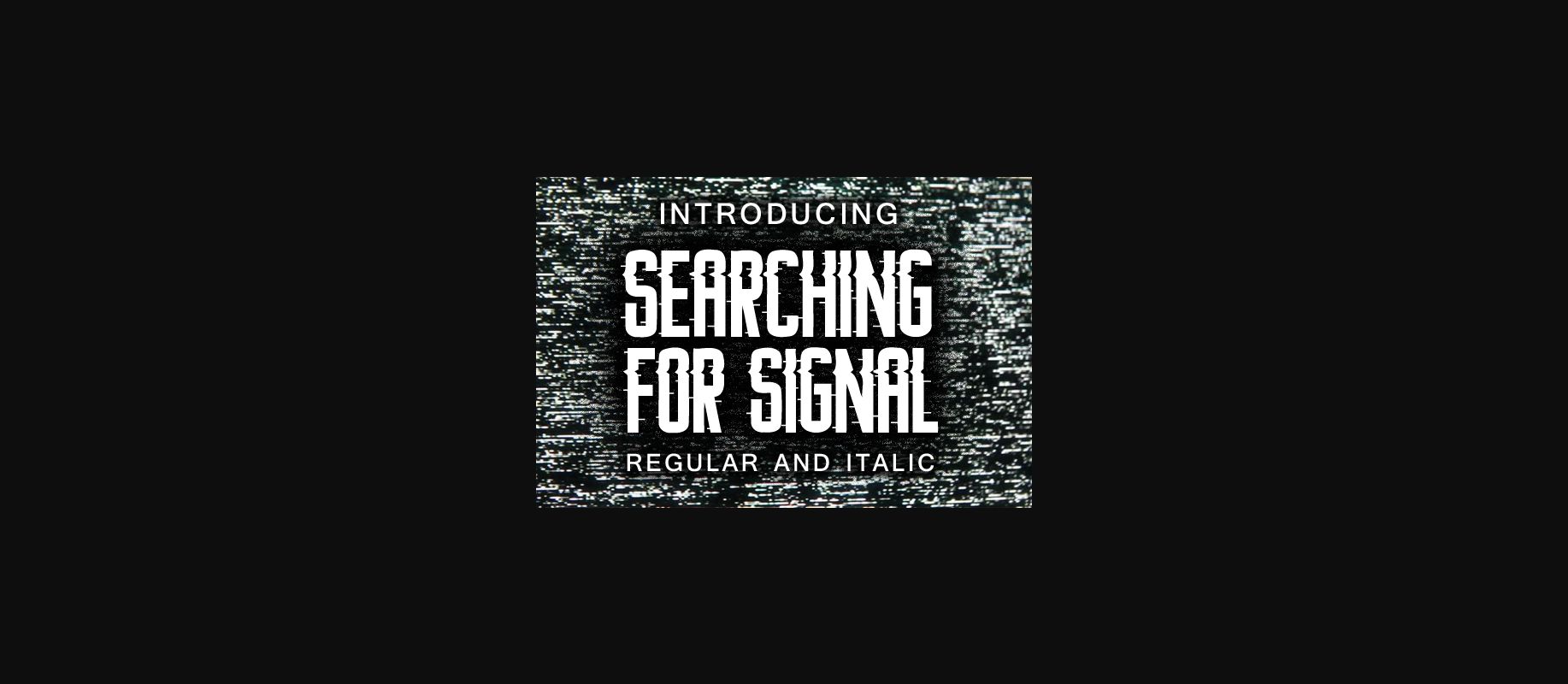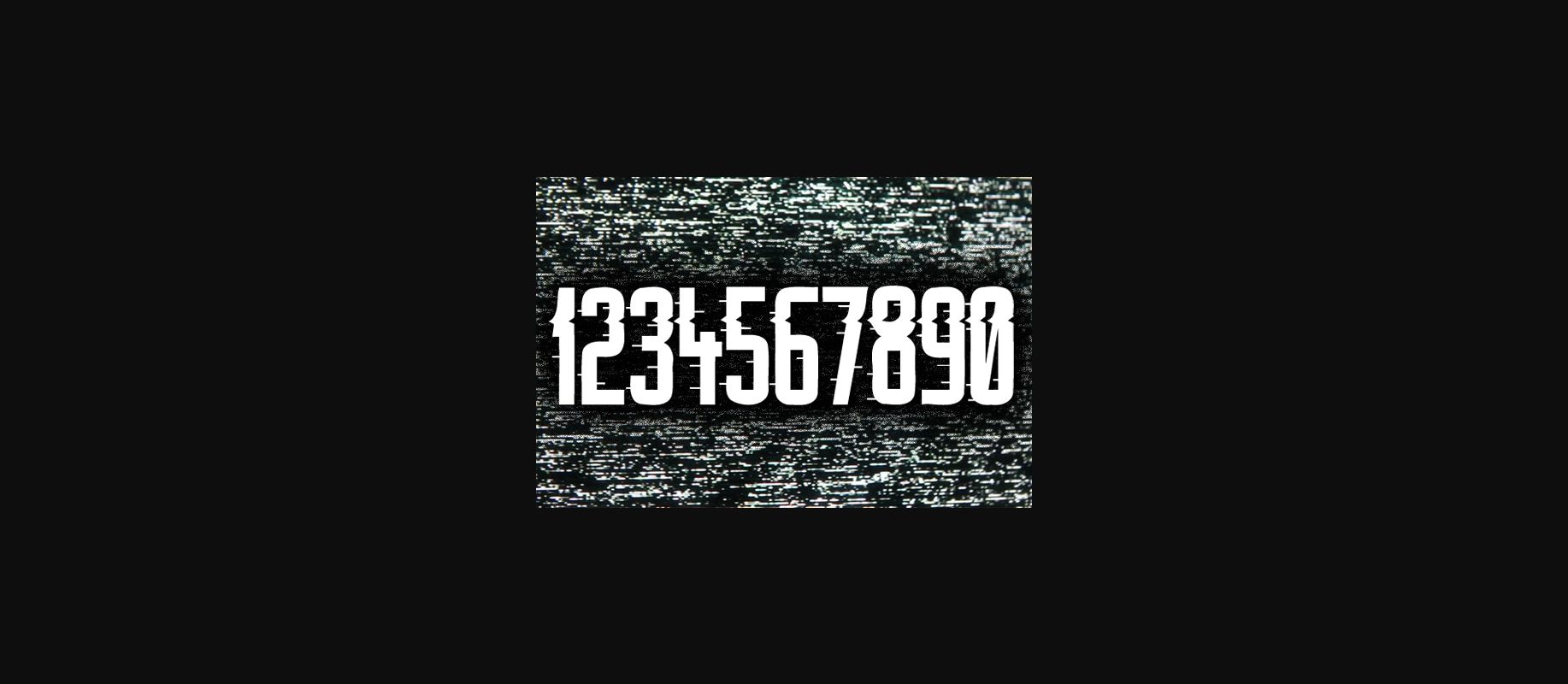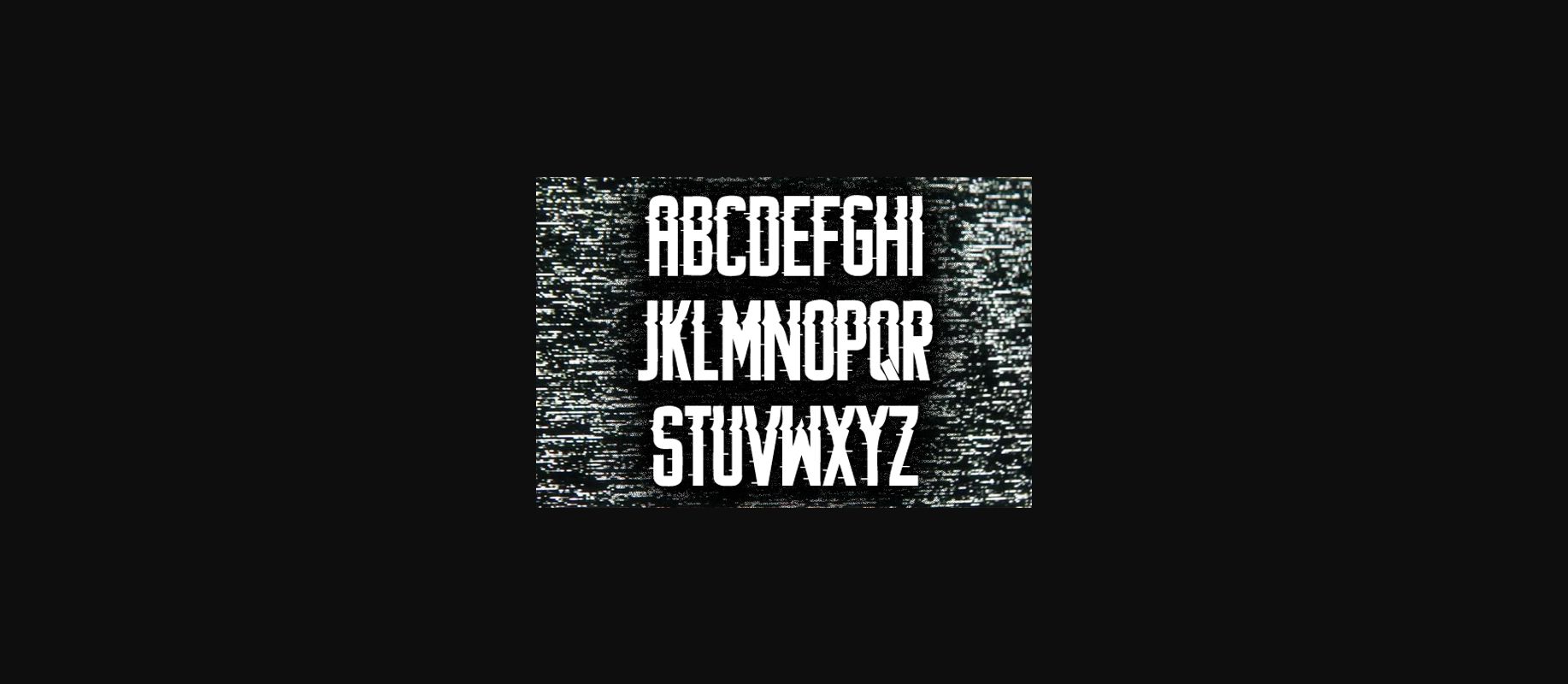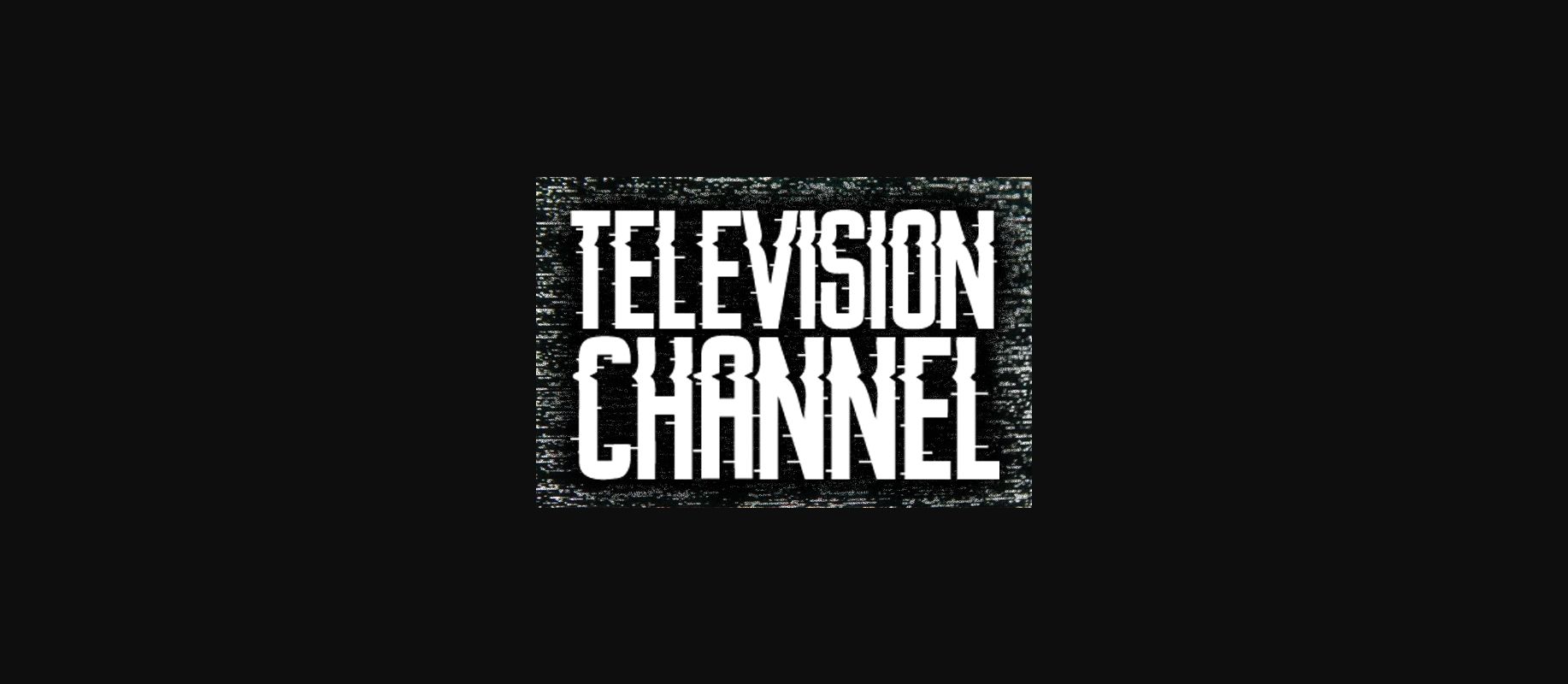
Searching for Signal Font
About Searching for Signal Font
Searching for Signal is inspired by image noises, making it the ideal decorative font to evoke digital glitches or errors.